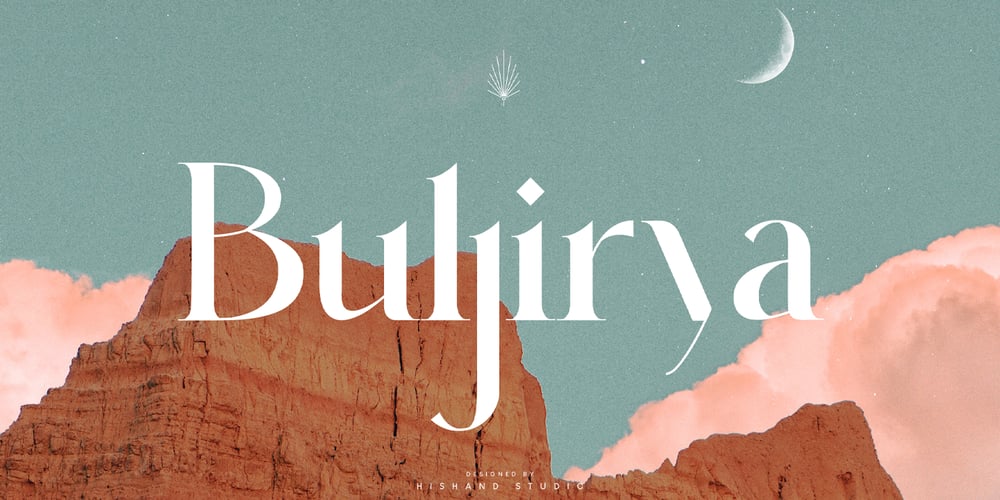
Buljirya
Buljirya font
Buljirya Font Family was designed by Putu Dody Permana and published by Hishand Studio. Buljirya contains 3 styles and family package options. Buljirya font is inspired by dream and pastel colour combined with elegant. Perfect for Logo, product packaging, advertisement, social media post, fashion brand, magazine headers and many morecomplete with ligatures alternates regular italic icon kerning multilingual support